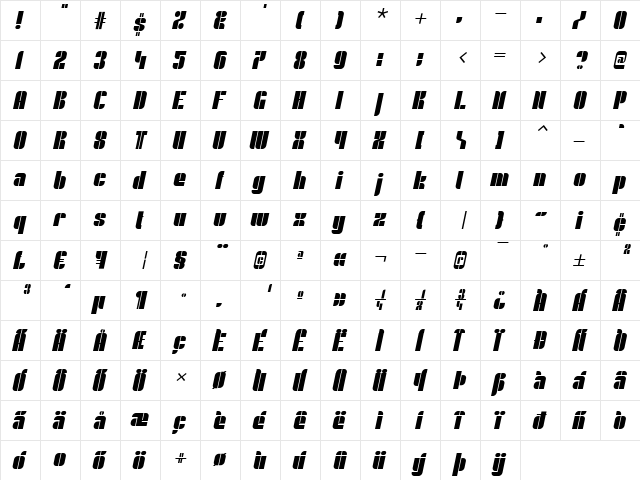
Shuttle Oblique
Design Context for Shuttle Typeface
Shuttle is a composed and adaptable typeface that performs quietly and consistently across a wide range of design contexts. The slanted form adds forward momentum and visual energy.
Pro Tip: Try Shuttle for annotation and caption copy alongside an upright companion — the contrast in angle creates a dynamic but ordered typographic system.